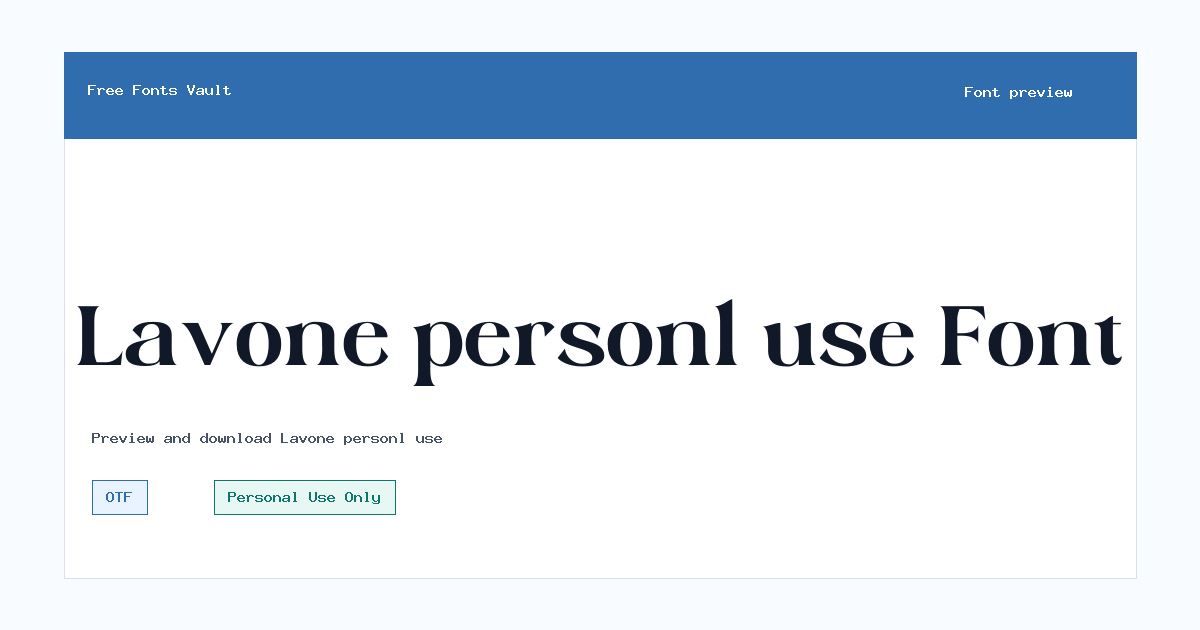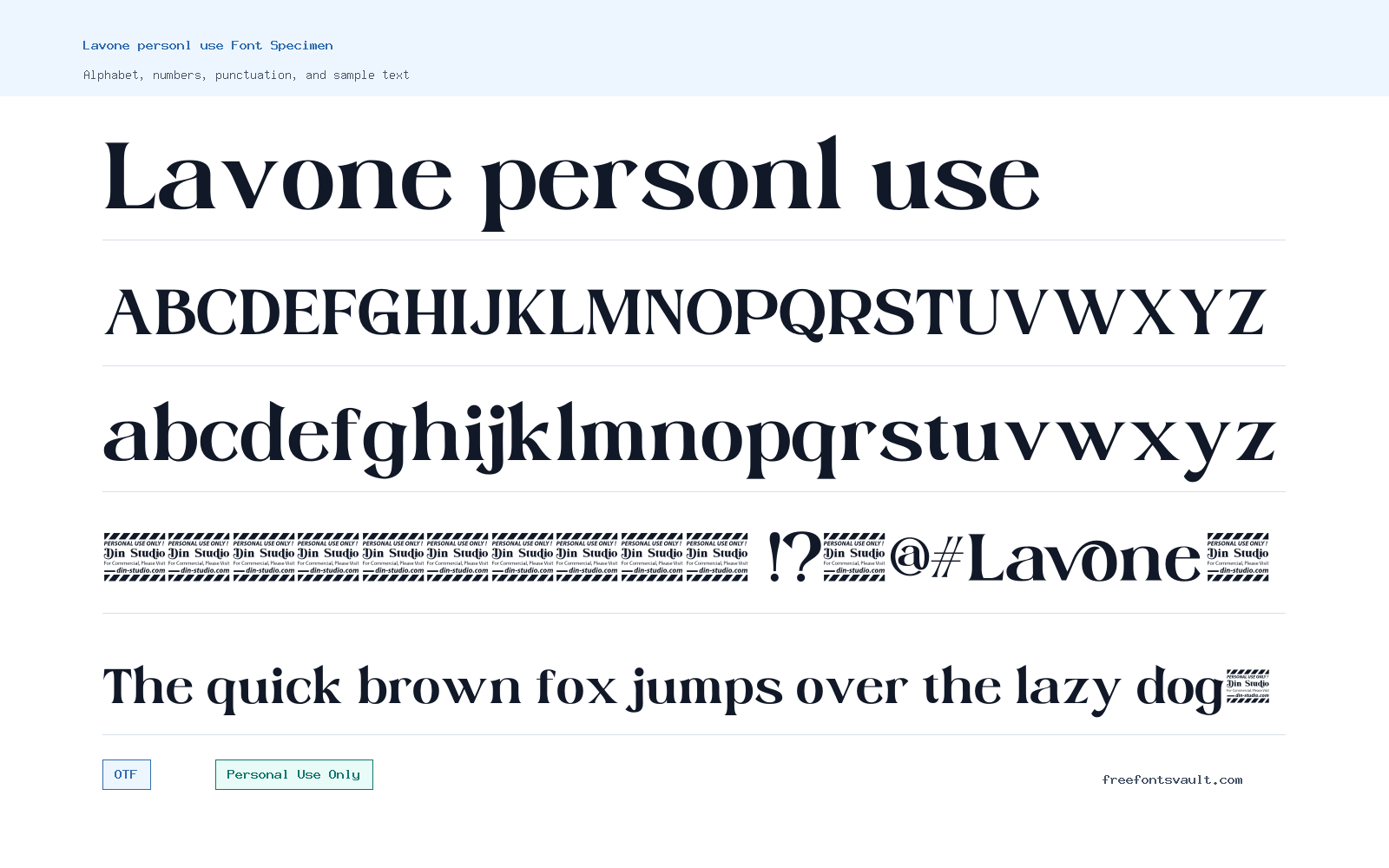
Lavone personl use
- Designer Donis Miftahudin
Lavone personl use font.
Lavone Personal Use is a modern serif font with a strong display feel. It is best suited for visitors who want to test stylish titles, logo drafts, posters, book covers, and other short text before buying the right commercial license.
About Lavone Personal Use Font
Lavone has the look of a bold, expressive serif: high-impact letterforms, a semi-expanded feel, and enough polish for elegant display work. Din Studio describes Lavone as a modern serif with legibility for both larger text and body settings, while third-party font data lists it as bold and semi-expanded. That makes it a practical choice for testing headings, brand mockups, editorial titles, and social graphics where the words need presence without becoming overly decorative.
- Modern serif style with bold, semi-expanded character noted in font listings
- Din Studio product information lists OpenType features such as alternates, ligatures, stylistic sets, swashes, numerals, punctuation, and multilingual support
- Logo drafts and brand concept mockups
- Book covers, magazine-style headings, and editorial title treatments
- Short quotes, names, and display text in personal projects
What kind of font is Lavone?
Lavone is a modern serif display font. Source listings describe it as bold, expressive, and semi-expanded, which makes it useful for strong titles and visual branding tests.
Who is credited for Lavone?